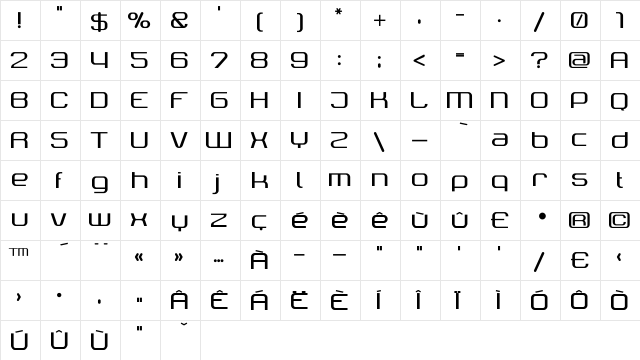
Tektrron Regular
| Foundry | design: onezero/2002 |
| Designer | onezero |
Design Context for Tektrron Typeface
Tektrron takes a measured approach to typography — its balanced proportions and neutral character make it a reliable workhorse for both digital and print work.